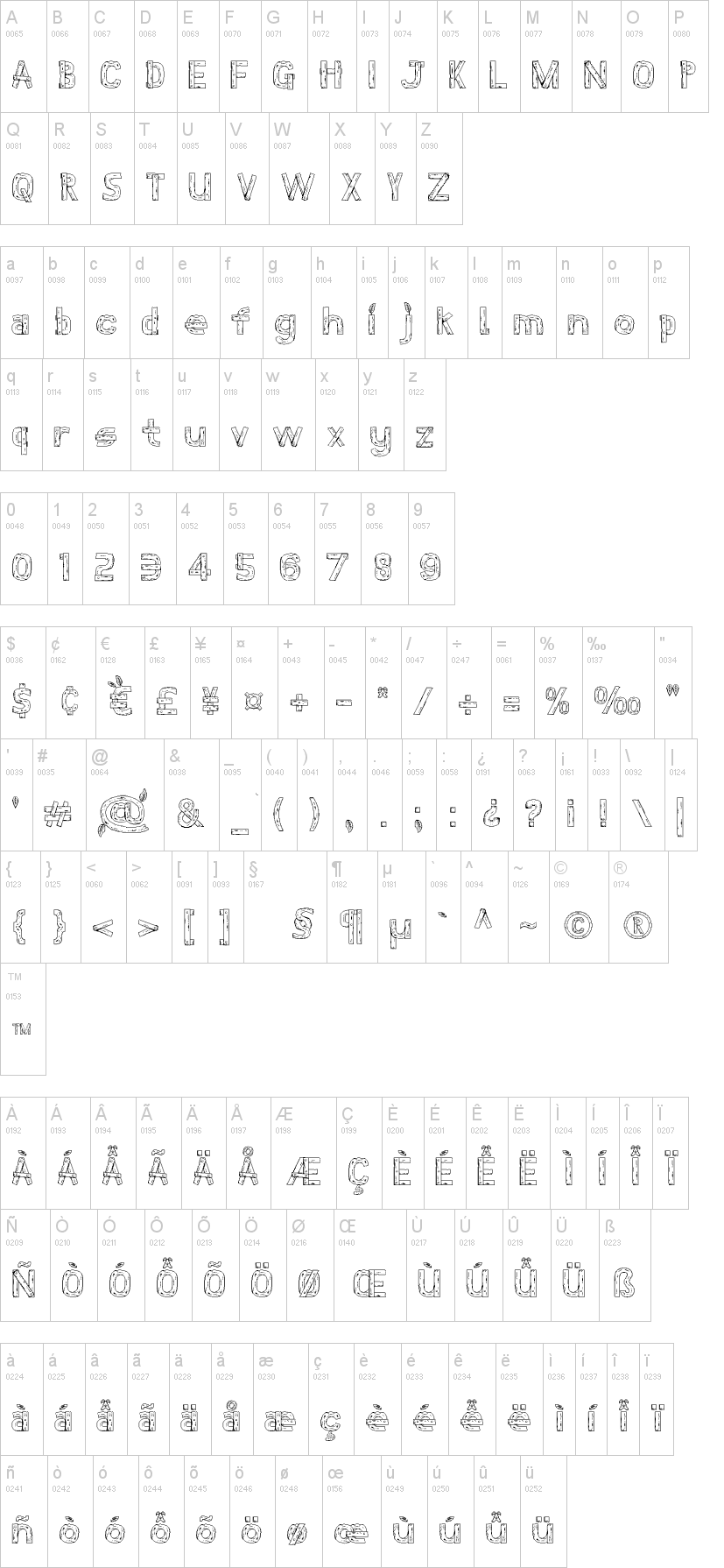
Stardew Valley Font Dafont
Stardew valley stardew valley all caps.ttf 287 kb | stardew valley regular.ttf 178 kb | this font is based on the title font of the game stardew valley. For the first time, it was specially created for microsoft windows on 26. I need it for important reasons but digital art is not a skill i possess